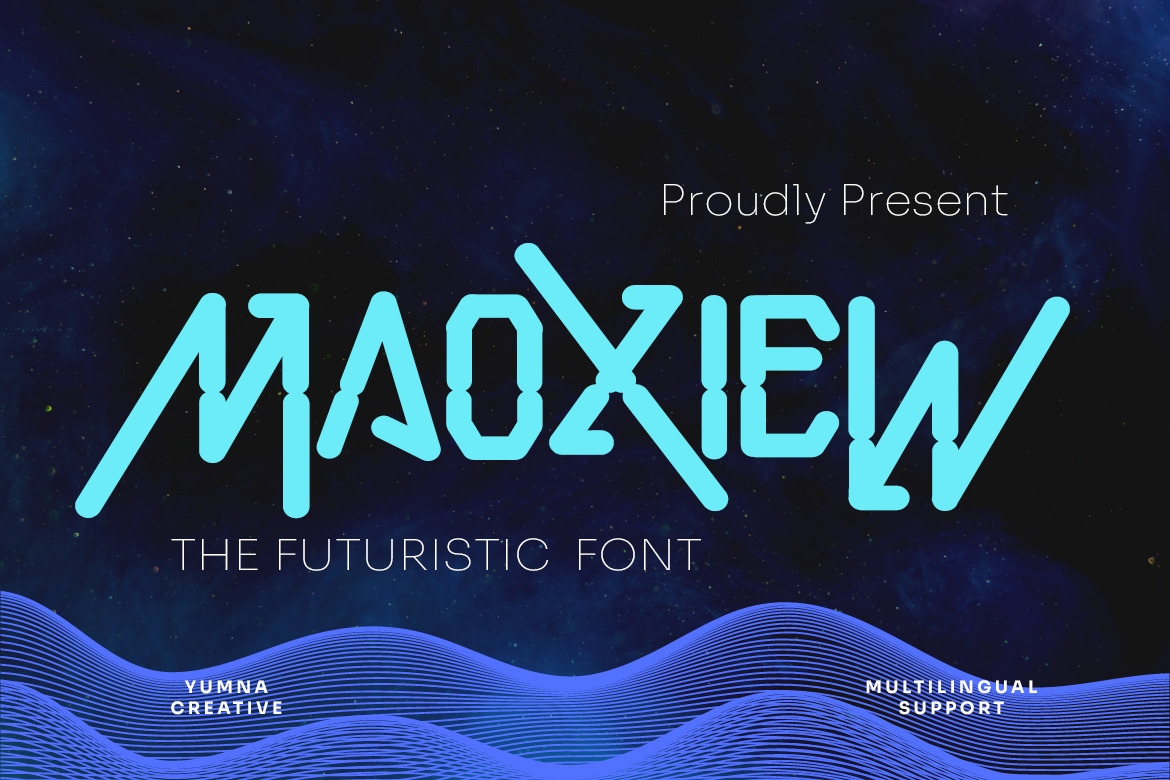
Maoxiew - Futuristic Font
Introducing Maoxiew - Futuristic Font
This Font is a delicate, elegant and flowing handwritten font. It has beautiful and well as a unique blend of ligatures a letter, so that the authors compose it with a and little swirly embedding, so that a modern font is formed and ready to make a statement by adding elegant and unique flair to your next design project. Add it to your most creative ideas and notice how it makes them come alive!
• Alternate